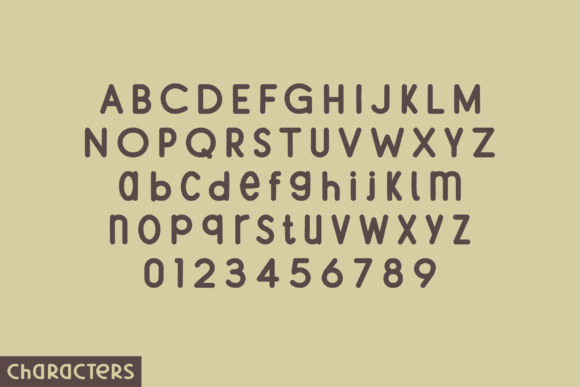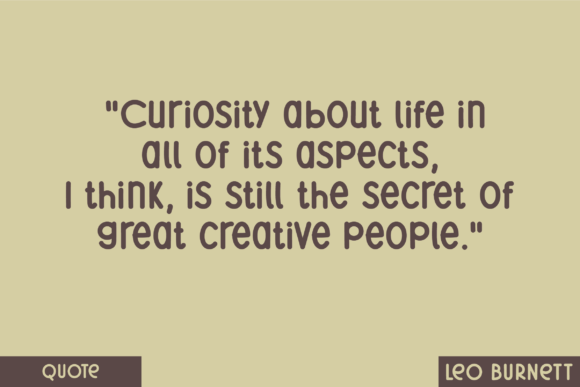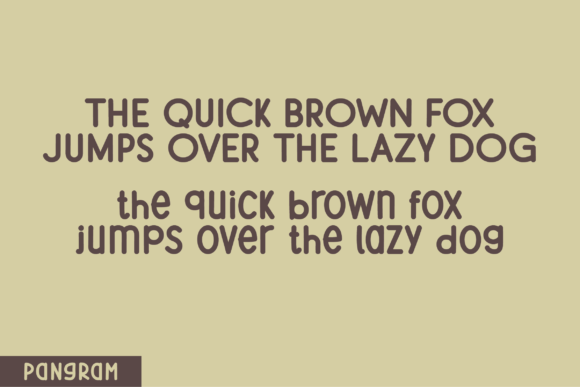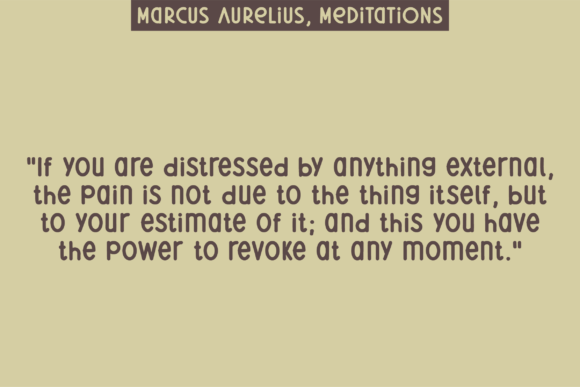
The Eggplant Font: A Unique Sans Serif for Creative Projects
I still remember the design project that led me to discover the Eggplant font. I was working on a quote poster for a client, and I wanted a font that would add a touch of elegance and whimsy to the design. After hours of scrolling through font libraries, I stumbled upon Eggplant, and it instantly caught my attention. Its unique, natural sans serif style was exactly what I needed to bring my design to life.
An Honest Review of Eggplant Font
So, what makes Eggplant font so special? Here’s what I love about it:
- ✨ Unique character indentation: Eggplant’s creator didn’t change a single node in each character’s indentation, making it stand out from other sans serif fonts.
- ✅ Perfect for quotes and notes: The font’s elegant and clean design makes it ideal for showcasing quotes, notes, and other text-based content.
- ✅ Great for product design: Eggplant’s versatility means it can be used for a wide range of product design projects, from t-shirts to posters and more.
While Eggplant is an excellent font, it’s not without its quirks. Here are a few things to keep in mind:
- 🤔 Limited use in body text: Due to its unique design, Eggplant might not be the best choice for long blocks of body text. It’s better suited for headlines, quotes, and short paragraphs.
- ⚠️ Glyph support: Some users have reported issues with glyph support, particularly on certain platforms. However, this can be mitigated by using OpenType features and glyphs.
The Story Behind Eggplant Font
Eggplant font was created by a talented type designer who wanted to craft a unique and natural sans serif font. The designer’s inspiration came from traditional typography and a desire to create a font that would stand out in a crowded design landscape. While the designer’s identity remains a mystery, their work has certainly made an impact on the design community.
| Font Name | Eggplant Font |
| Author | Hanna Bie |
| What is Eggplant font? | Eggplant is a natural sans serif font created without changing a single node in each character’s indentation, making it unique and interesting. |
| What is Eggplant font best used for? | Eggplant is perfect for quotes, notes, tees, and any product design project that requires a clean and elegant sans serif font. |